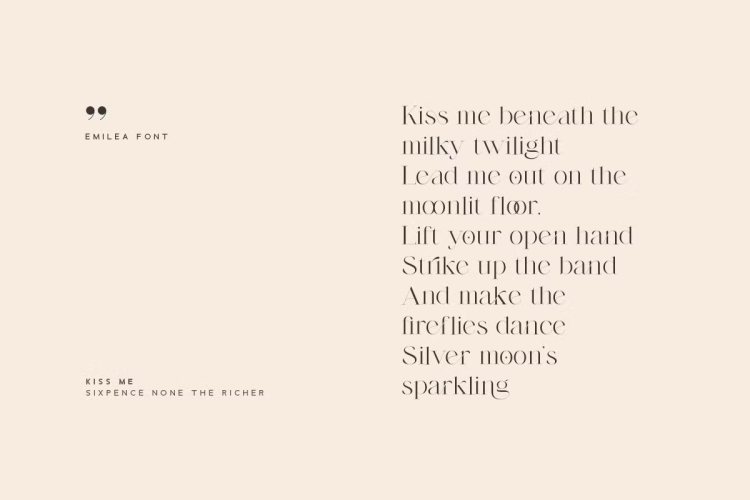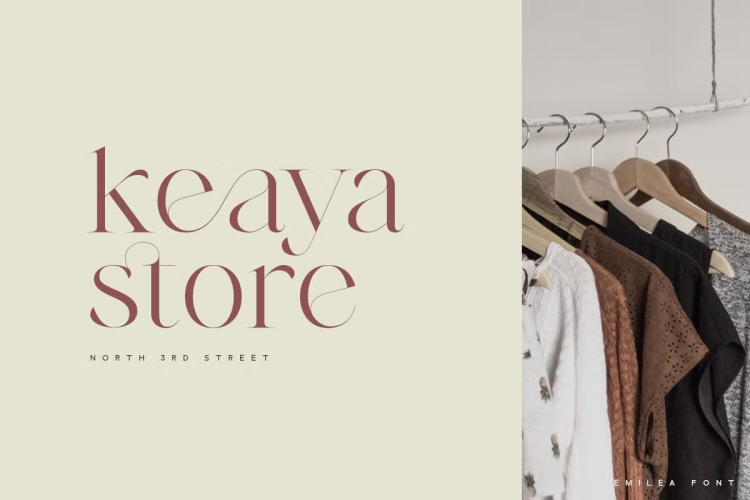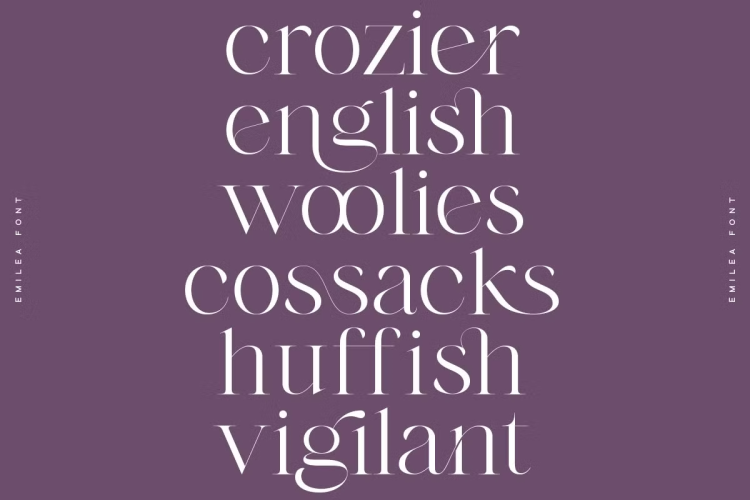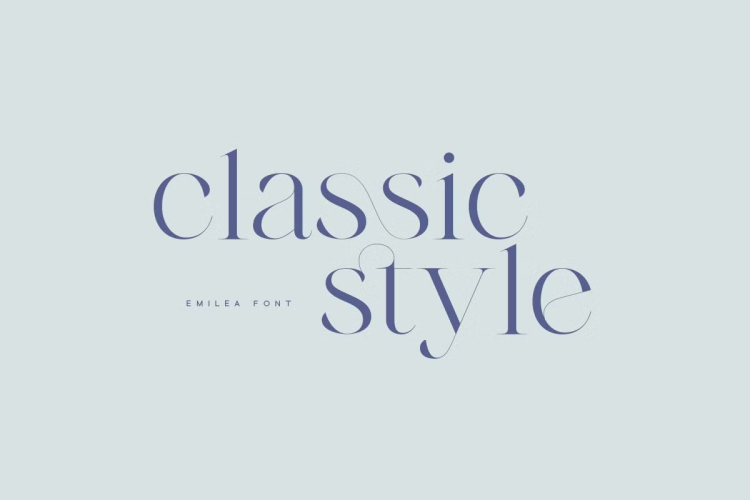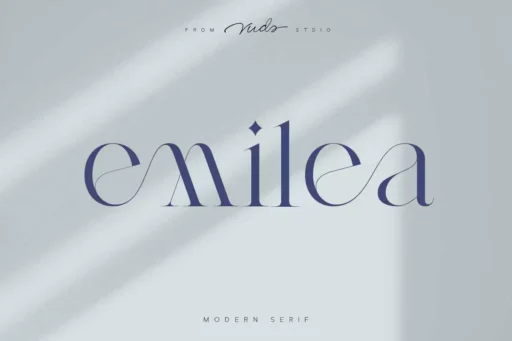
Emilea Font
Emilea is a clean and elegant modern serif font designed to provide each character in order to create a striking text.
It has very nice set of stylistic alternates. These alternates can be found in Font Book for Mac users and Character Map for Windows users. It has a tutorial link in it Zip file.
Emilea Font is a Serif Fonts font that brings a professional and versatile look to your projects. Emilea is a clean and elegant modern serif font designed to provide each character in order to create a striking text.